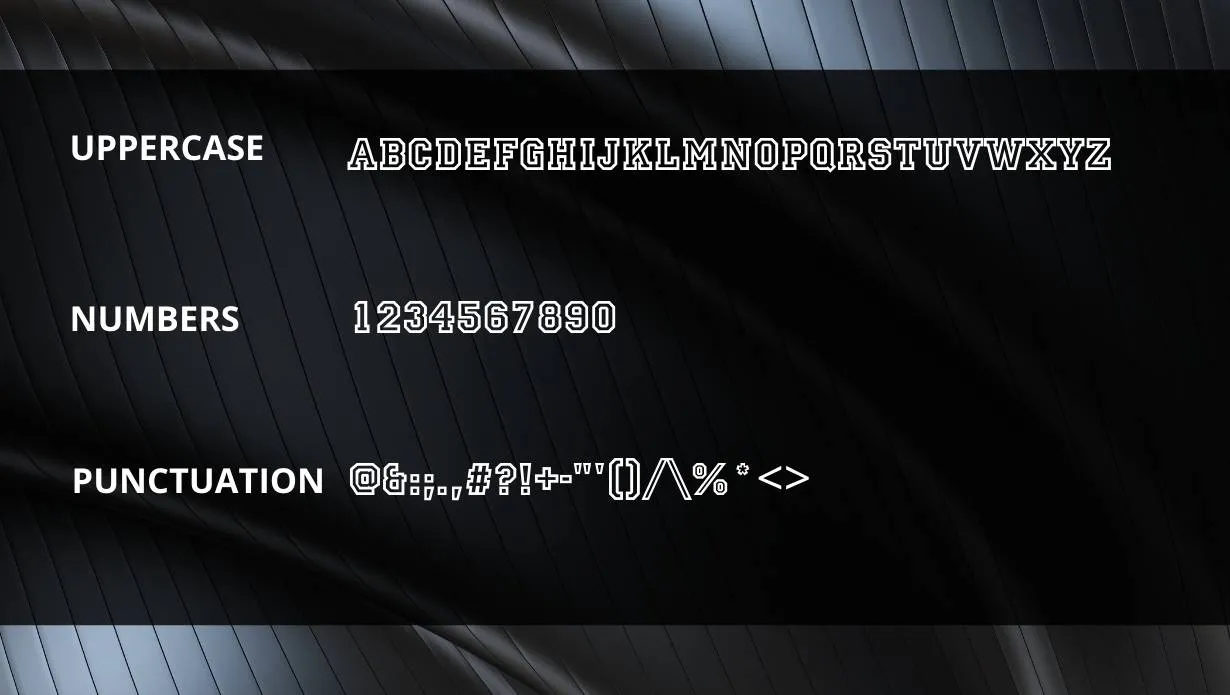
Allstar Font is a display typeface designed by Jim Wasco and released through Frere-Jones Type in 2001. This is a display typeface featuring tight letter spacing and a tall x-height. The family includes eight styles: four weights (regular, bold, black, and ultra-black) with corresponding oblique styles.
This font glyph is best used in large sizes. Due to its fantastic texture, it can work very well for printing purposes. It is classy, timeless, and will always be in style. You can also try the sabon font in your specific designs that have amazing powerful characters and a pair nature.
Name | Allstar Font |
Designer | Jim Wasco |
Style | Display |